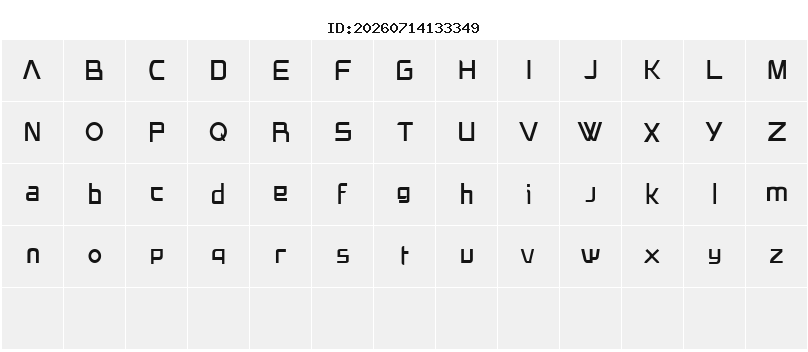
• Font Name: HELIOS
About HELIOS.ttf
HELIOS.ttf is a modern, elegant sans-serif font designed for ultimate readability and visual harmony. Perfect for branding, headlines, web design, and print materials.